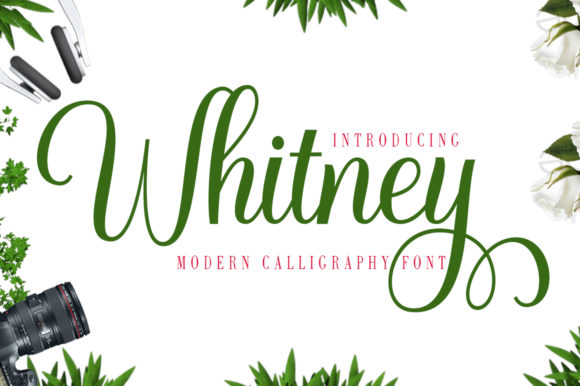
Introducing Whitney Font, the ultimate script font for adding a touch of elegance and sophistication to your designs! Created by the talented gatype, this delicate and flowing handwritten font is sure to captivate users looking to make a statement with their typography.
With its beautiful and well-balanced characters, Whitney is the perfect choice for those seeking a font that exudes grace and charm. Whether you're designing a wedding invitation, a logo, or simply want to elevate your personal branding, this font is guaranteed to make your creations shine.
What sets Whitney apart from other script fonts is its versatility. It seamlessly complements a wide range of design styles, from modern and minimalist to vintage and romantic. Each character is carefully crafted to ensure a smooth and seamless appearance, giving your text a professional and polished look.
But what truly sets Whitney apart is its extensive range of glyphs and swashes. Thanks to its PUA encoding, accessing these decorative elements is a breeze. From elegant flourishes to stunning alternates, you'll have endless possibilities to truly customize and personalize your designs.
Imagine the impact Whitney can have on your projects. Its varying baseline adds a touch of dynamism, making your text appear alive and full of energy. The smooth lines and gorgeous glyphs further enhance its beauty, creating a captivating visual experience for your audience.